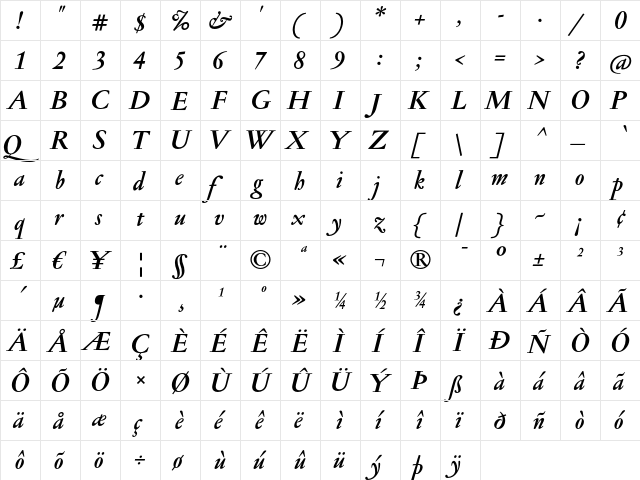
Jannon Med Bold Italic
| Foundry | Frantisek Storm, stormtype.com |
Design Context for Jannon Med Typeface
Jannon Med is a composed and adaptable typeface that performs quietly and consistently across a wide range of design contexts. Its italic angle brings a sense of urgency and motion to the letterforms. The heavy weight commands attention and anchors typographic hierarchies.
Pro Tip: Try Jannon Med for annotation and caption copy alongside an upright companion — the contrast in angle creates a dynamic but ordered typographic system.